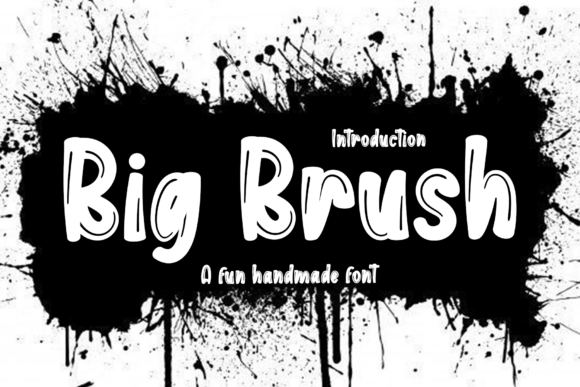
Introducing Big Brush Font: The Perfect Blend of Casual and Creative
In the world of typography, fonts play a crucial role in conveying the tone and personality of a design. If you’re looking for a font that exudes warmth, friendliness, and a touch of playfulness, then Big Brush Font is the perfect choice for you. This casual and creative font is designed to add a unique and fun touch to your personal projects, invitations, social media graphics, and more.
The Characteristics of Big Brush Font
Big Brush Font boasts round, playful strokes that create a relaxed and approachable feel. Its charming, hand-drawn aesthetic is reminiscent of a brush-painted sign, making it perfect for designs that require a personal touch. The font’s casual demeanor makes it an excellent choice for:
- Personal projects, such as photo albums, scrapbooking, and crafting
- Invitations, like birthday, wedding, or baby shower invites
- Social media graphics, including quotes, posters, and flyers
- Any design that requires a friendly and approachable tone
What Makes Big Brush Font Special?
Big Brush Font offers several benefits for designers and crafters, including:
- Unique and fun designs: Add a personal touch to your projects with Big Brush Font’s charming, hand-drawn aesthetic
- Time-saving: No need to spend hours creating custom lettering or illustrations; Big Brush Font has got you covered
- Versatile: Suitable for a wide range of design projects, from personal to commercial use
Tips for Using Big Brush Font
To get the most out of Big Brush Font, here are some tips to keep in mind:
- Experiment with colors: Big Brush Font looks great in bold, bright colors, but feel free to experiment with different hues and shades to match your design’s tone
- Mix and match: Combine Big Brush Font with other fonts or graphics to create a unique and eye-catching design
- Play with sizes: Use Big Brush Font in various sizes to create visual interest and hierarchy in your design
Big Brush Font is a fantastic addition to any designer’s or crafter’s font library. Its casual, creative, and charming aesthetic makes it perfect for a wide range of design projects. With its compatibility with various application engines and easy-to-use glyphs, Big Brush Font is sure to become a favorite among designers and crafters alike. So why not give it a try and add a touch of warmth and friendliness to your next design project?